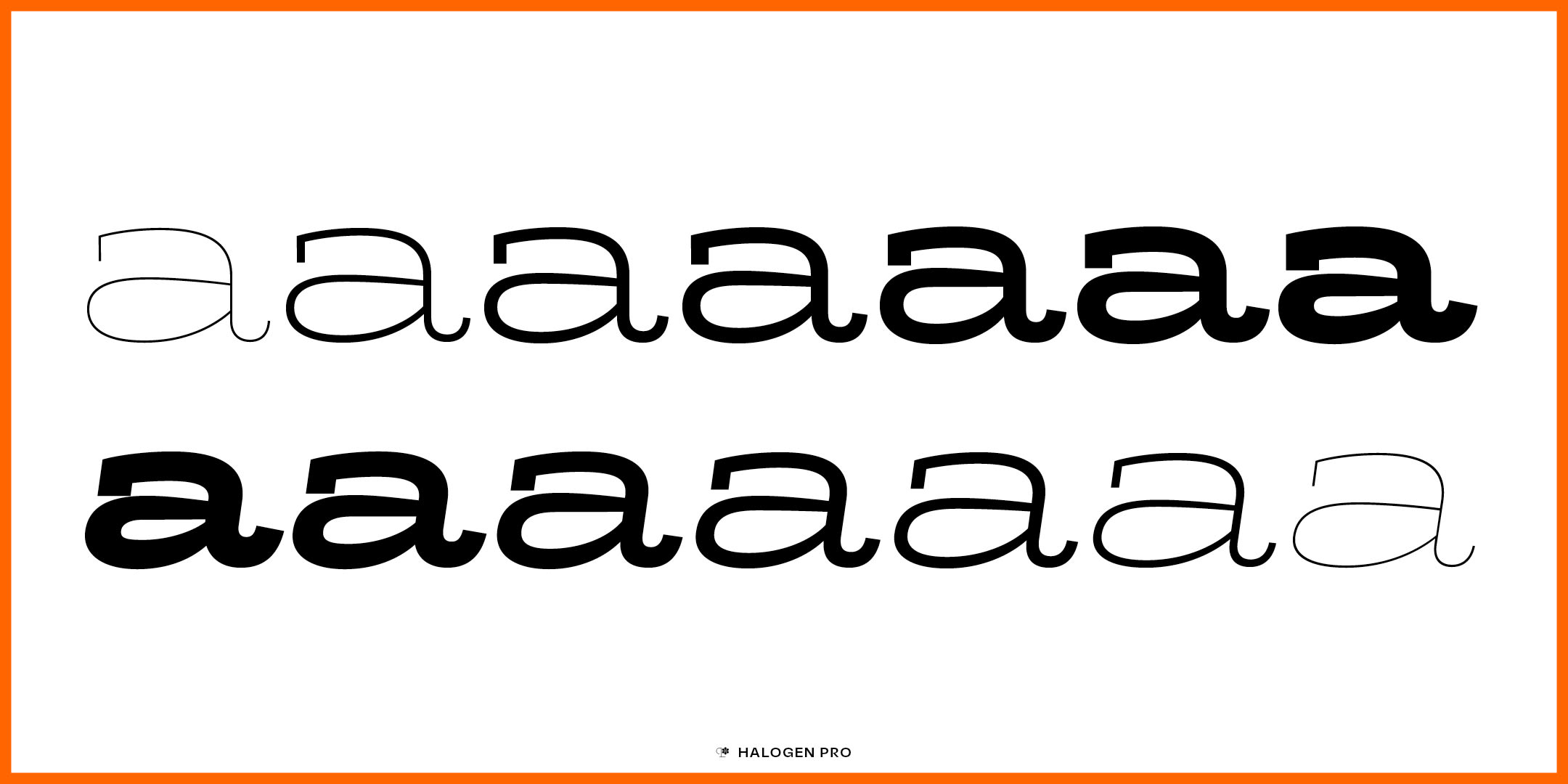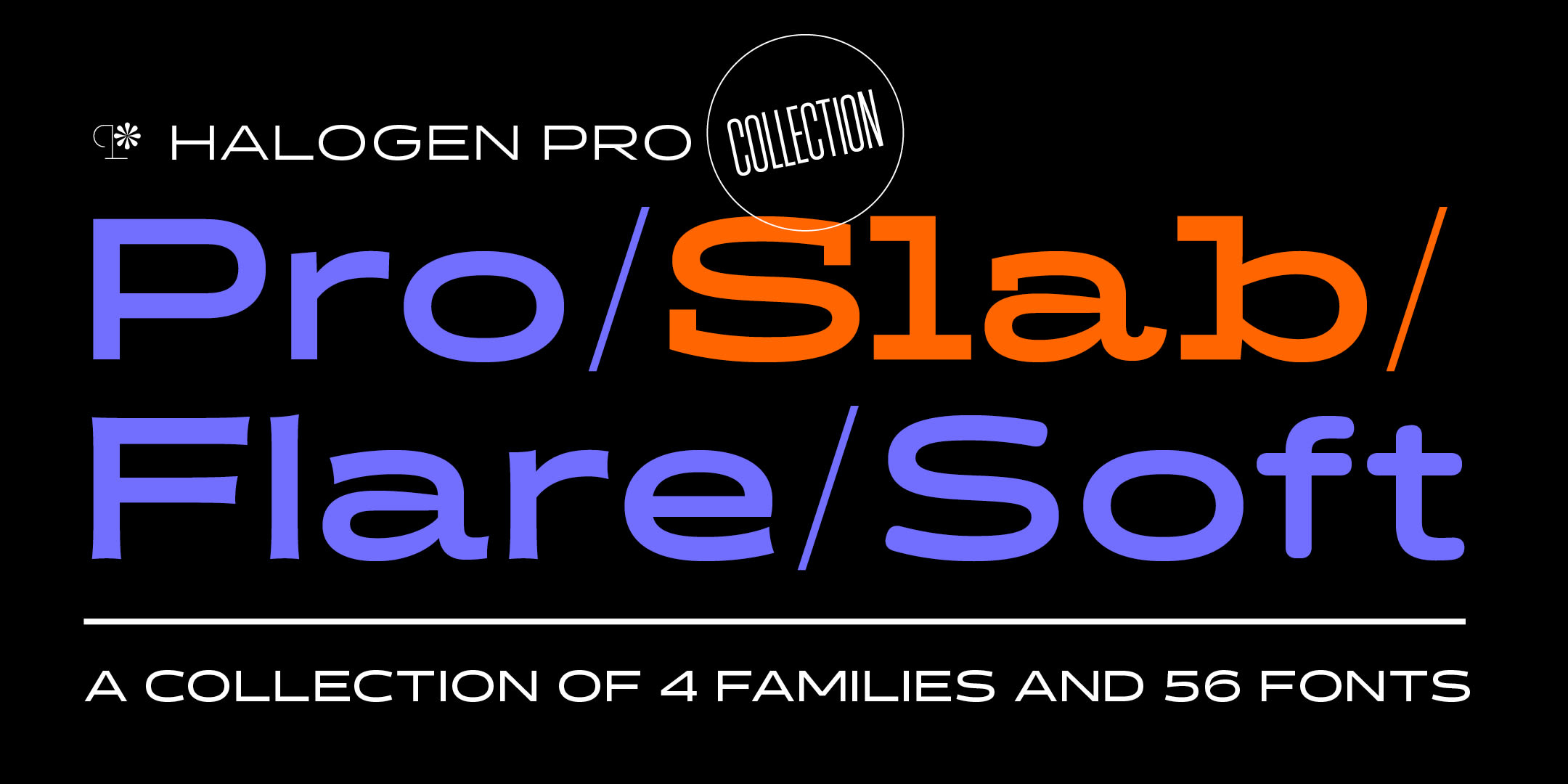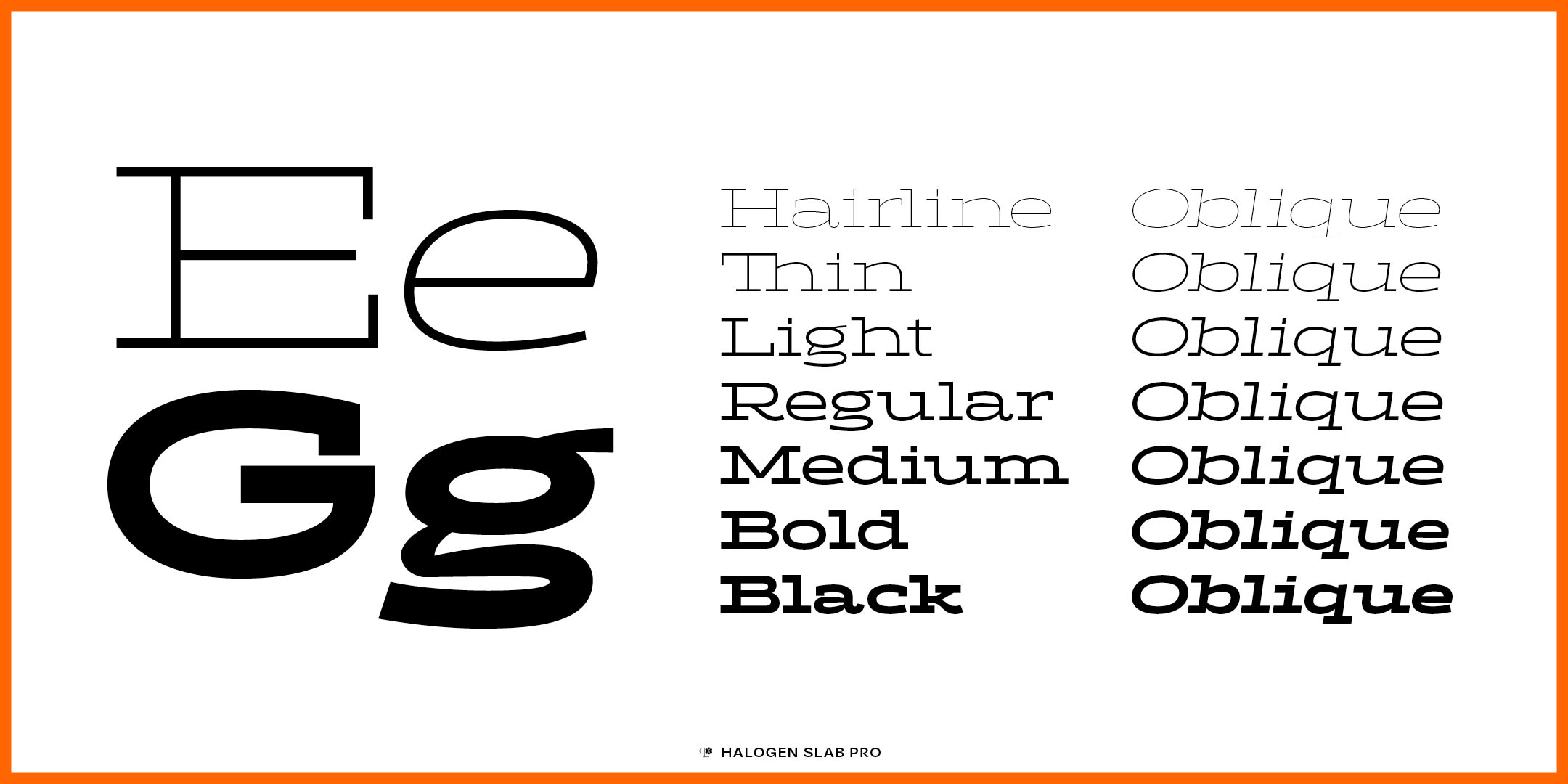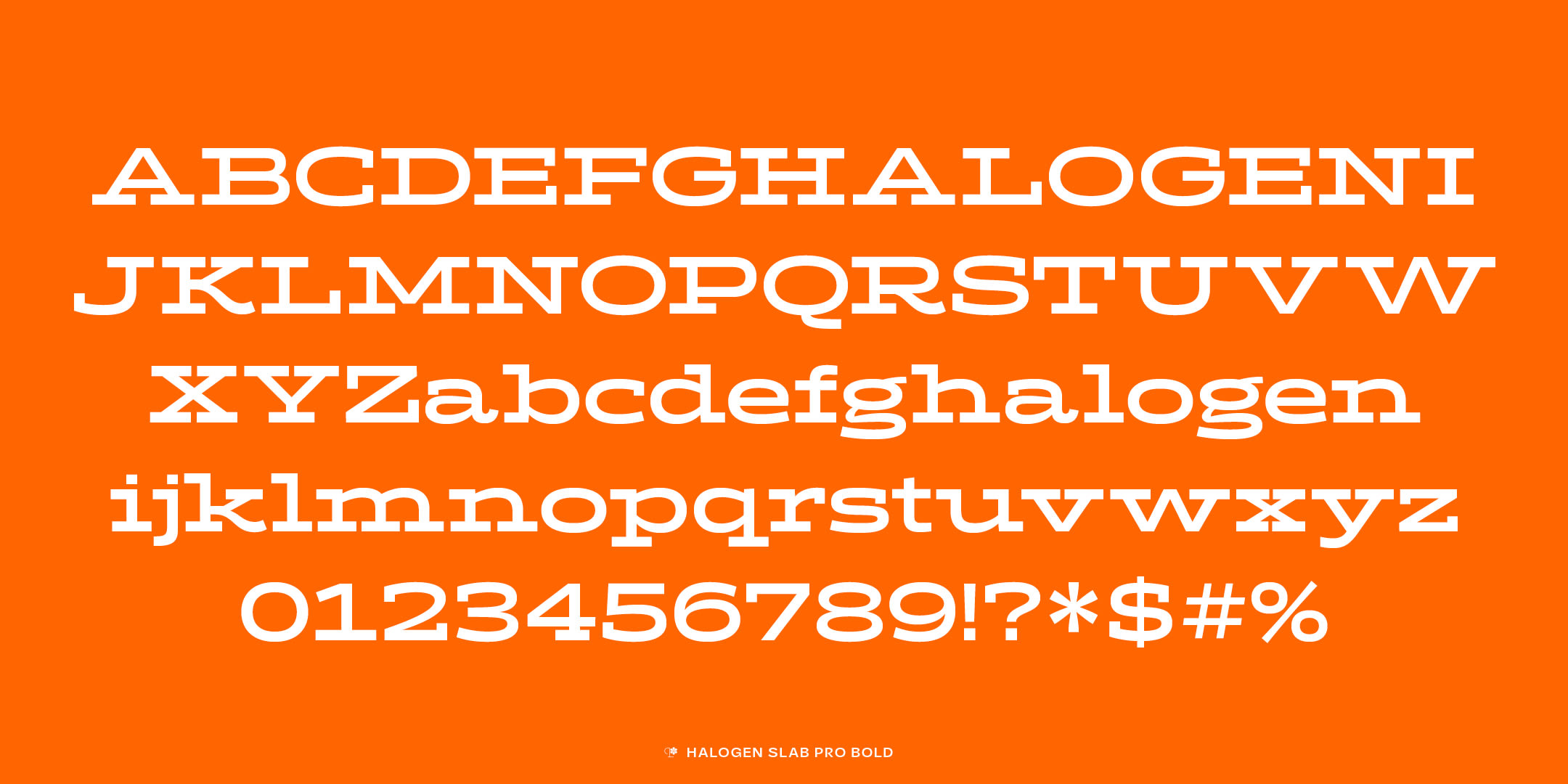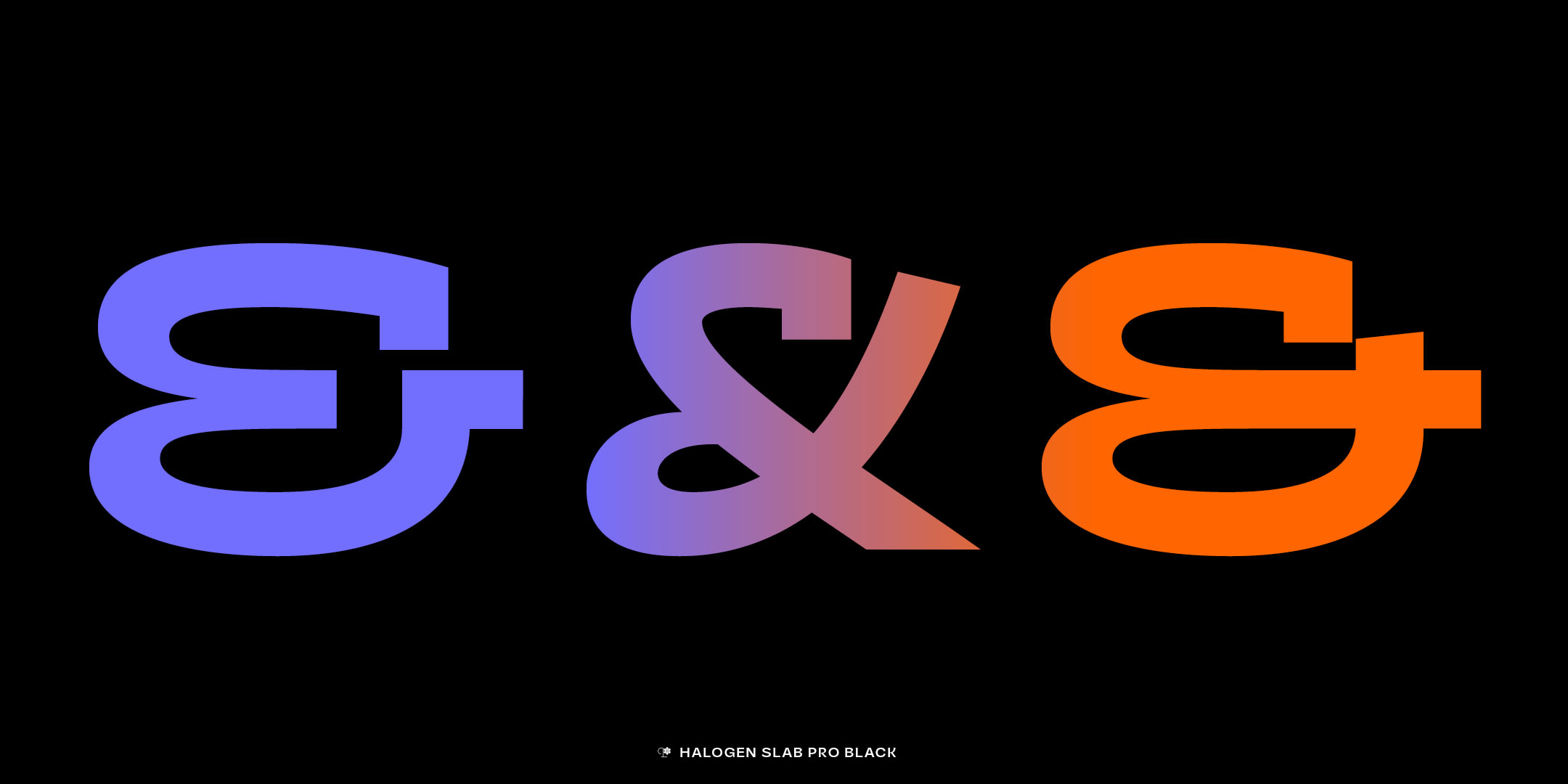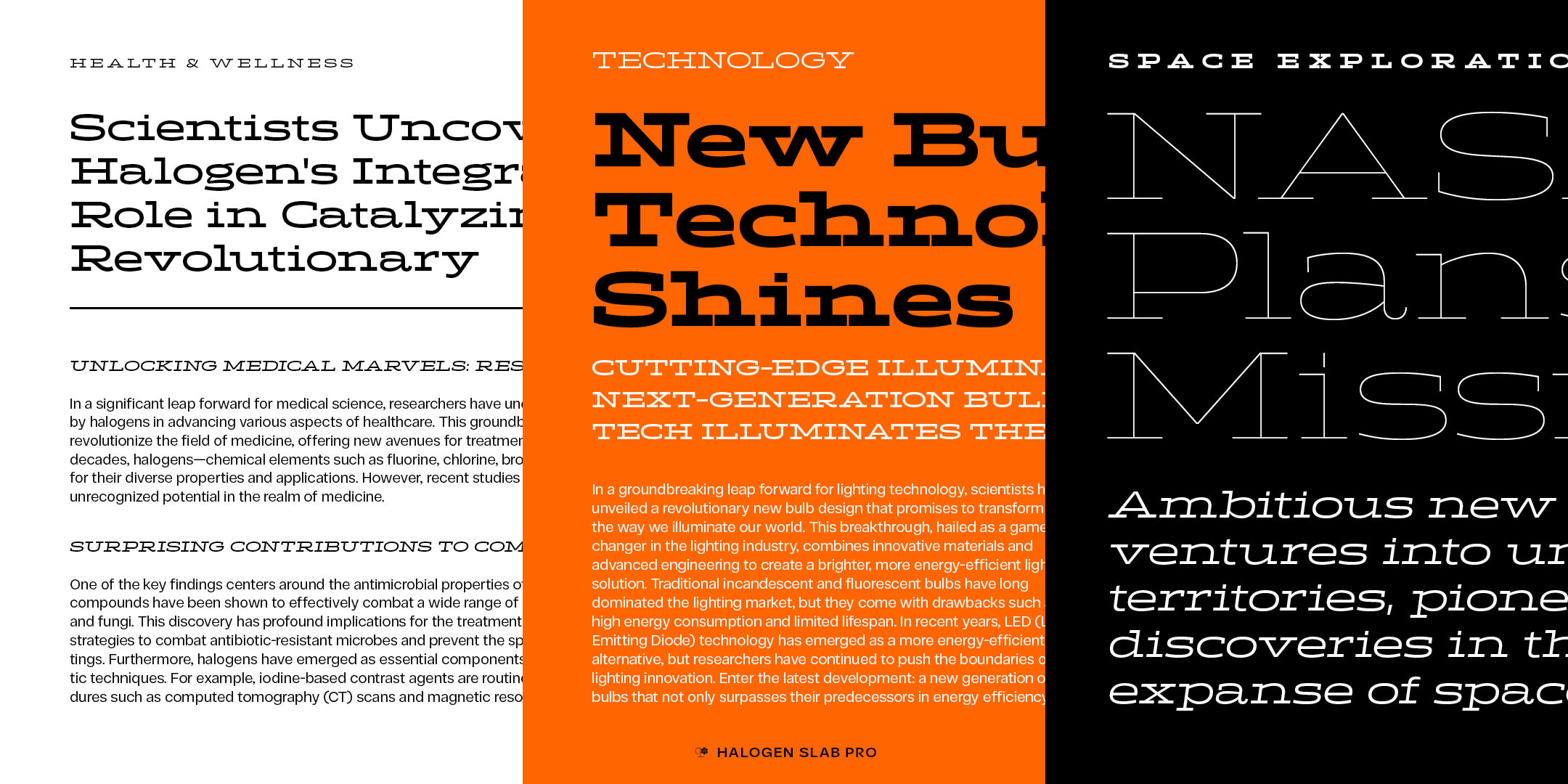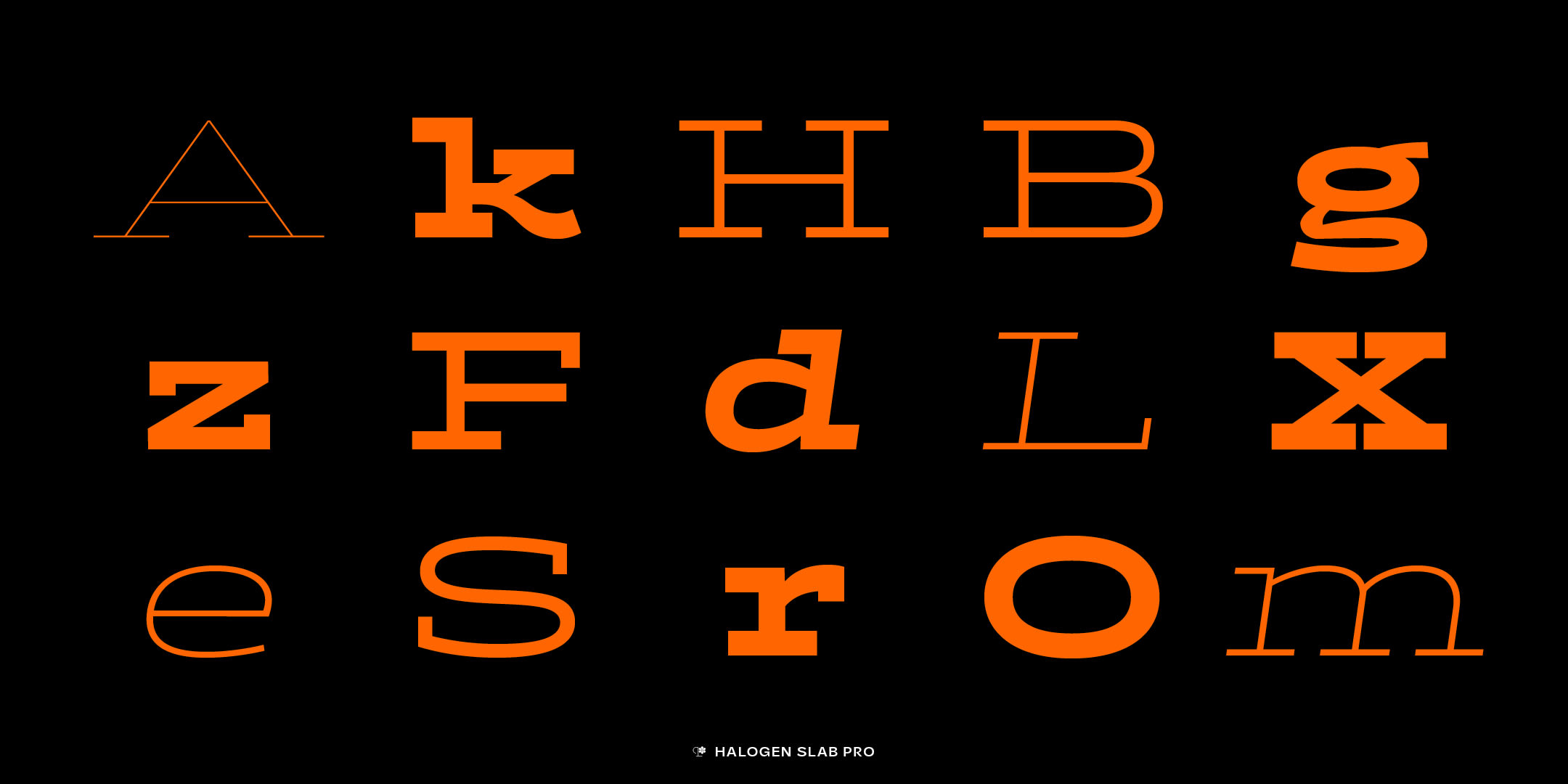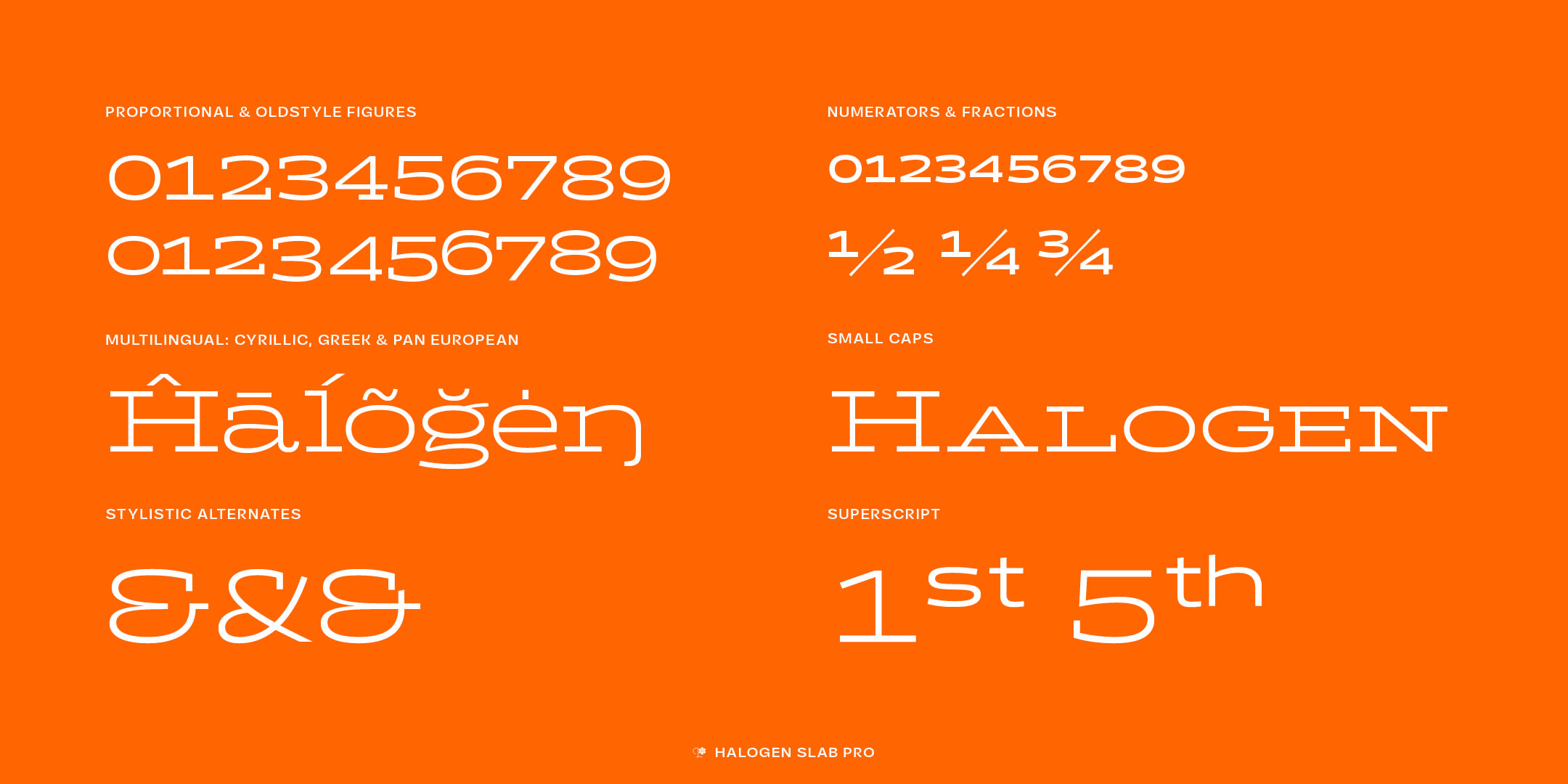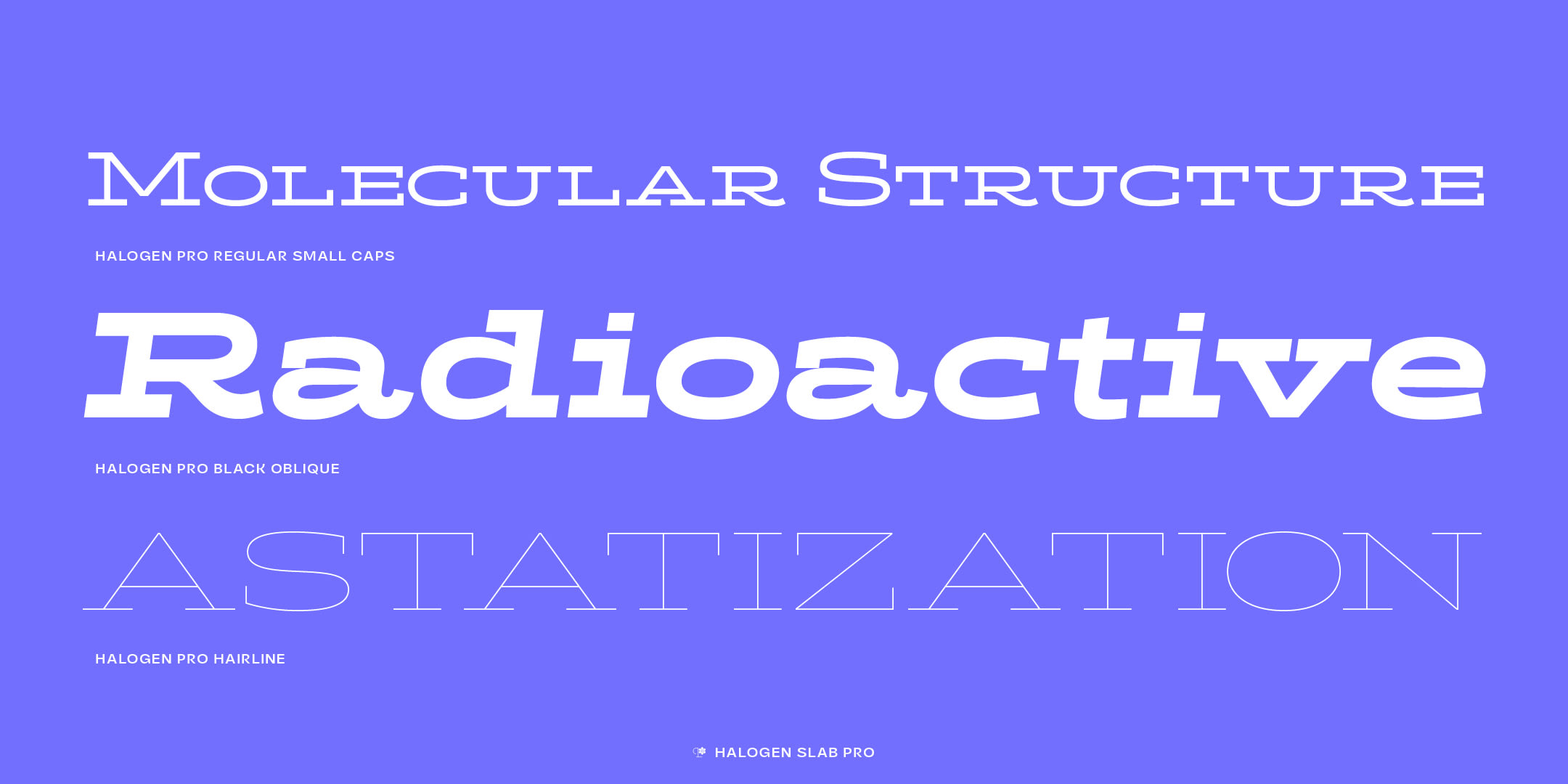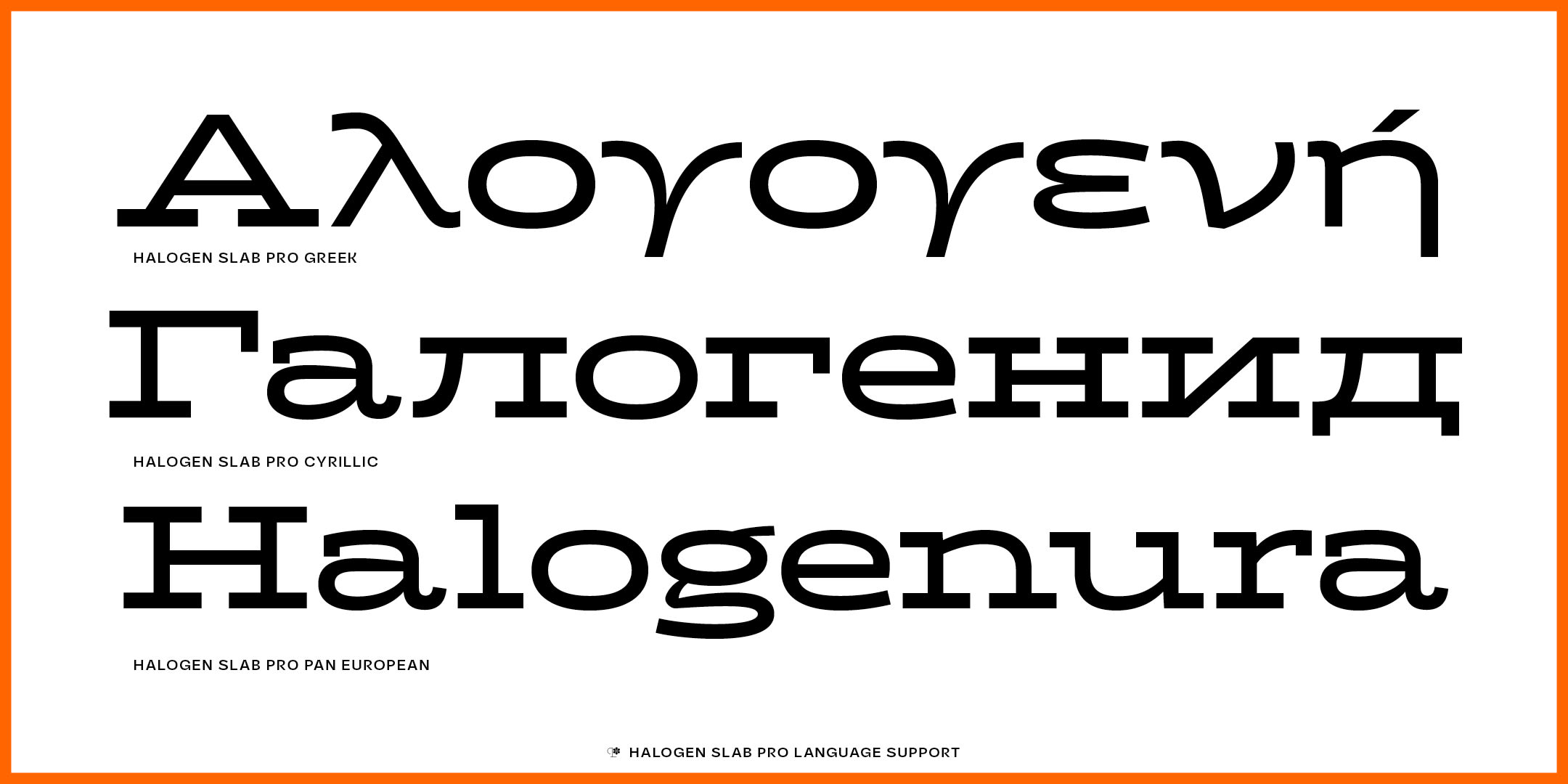
Halogen Slab Pro
Swashswsh
Small
Small Capssmcp
3/8 12/45
Fractionsfrac
h2 + x2
Superscriptsups
H2 + X2
Scientific Inferiorssinf
( H) [H] @
Case-Sensitive Formscase
01234
Oldstyle Numeralsonum
56789
Tabular Numeralstnum
EFHIW
Stylistic Set 1ss01
Remastered for 2024. The original Halogen, which debuted in 2011, marked a significant departure from conventional extended sans-serif typefaces. It eschewed mere utilitarianism in favor of exuding style and swagger, while still offering a comprehensive character set boasting a generous x-height in lowercase letters and small caps. Upon its release, Halogen garnered acclaim, prompting numerous requests for enhancements and modifications. Responding to this demand, Flare and Slab variants were introduced to the Halogen family.
Now, with the unveiling of Halogen Pro, this iconic typeface transcends its predecessors. Not only does it expand upon the existing character set, but it also broadens script support with the inclusion of Cyrillic and Greek alphabets. Additionally, Halogen Pro introduces a brand-new variant: Halogen Soft. This fresh addition to the collection maintains the distinctive features of its predecessors while offering a softer, more refined aesthetic.
Each typeface in the Halogen Pro collection boasts an array of features, including lowercase and small caps, multiple alternate sets, and an extensive selection of numerals. Furthermore, meticulous attention to detail ensures a seamless blend of functionality and visual appeal, making Halogen Pro the quintessential choice for designers seeking versatility and sophistication in their typographic endeavors.